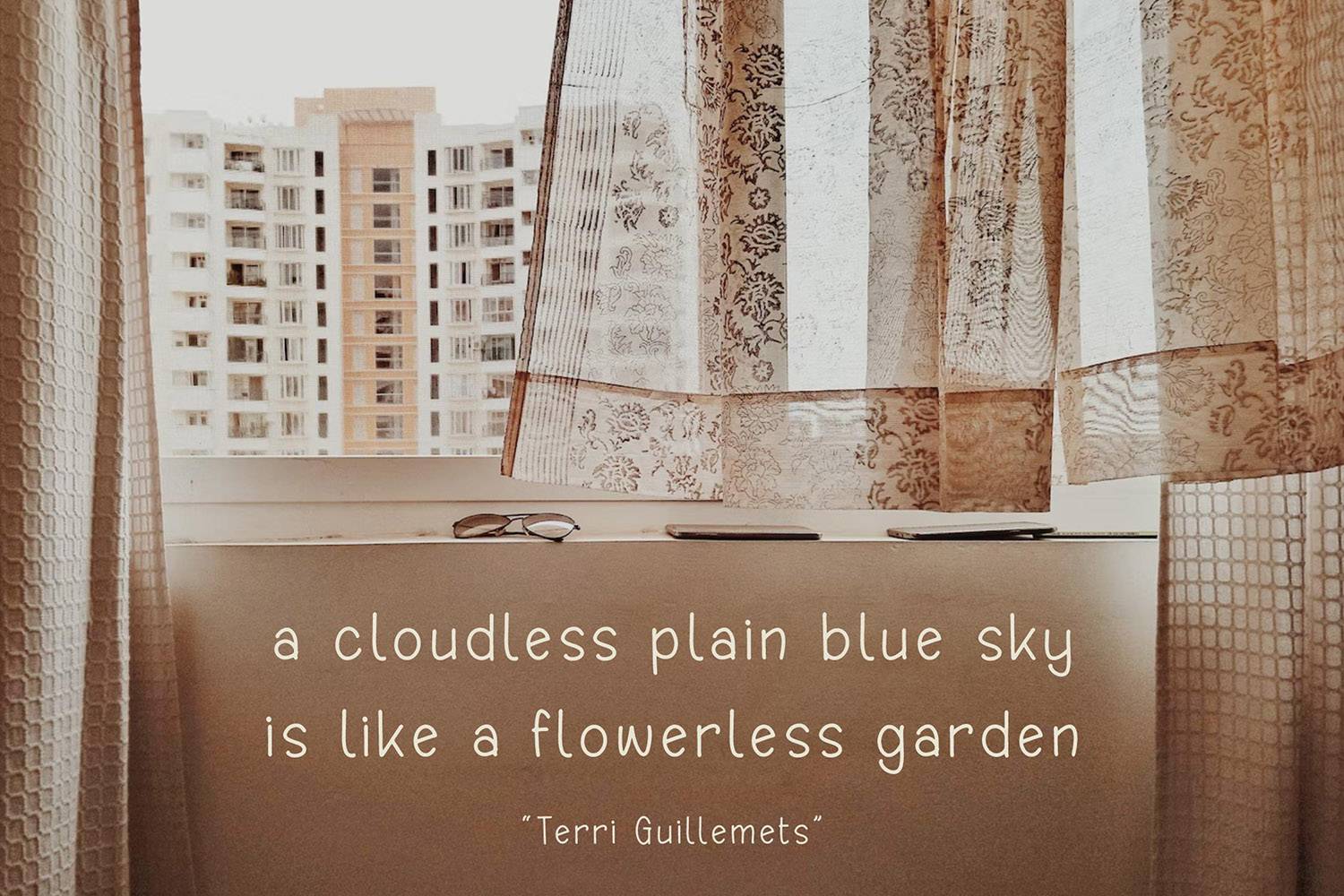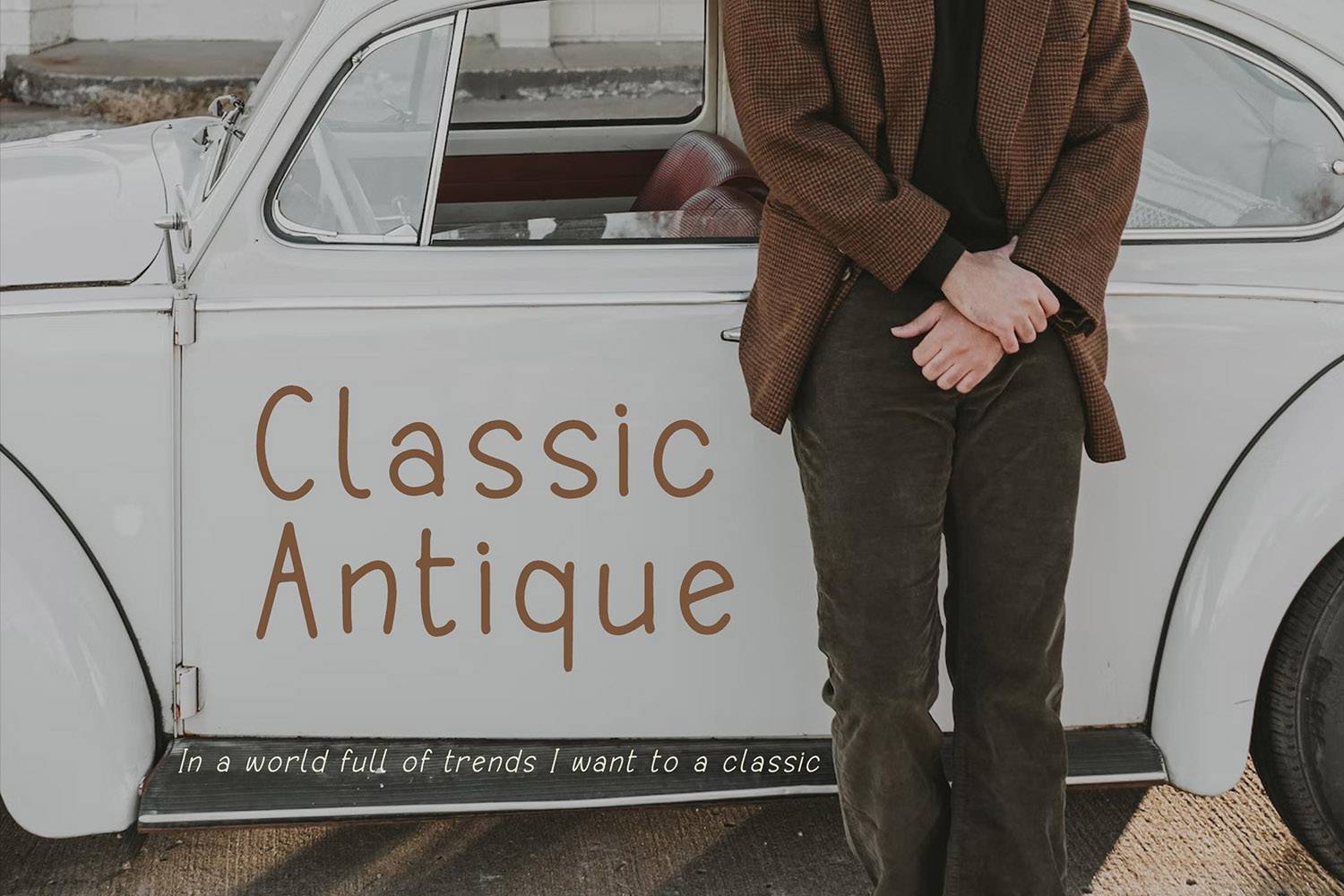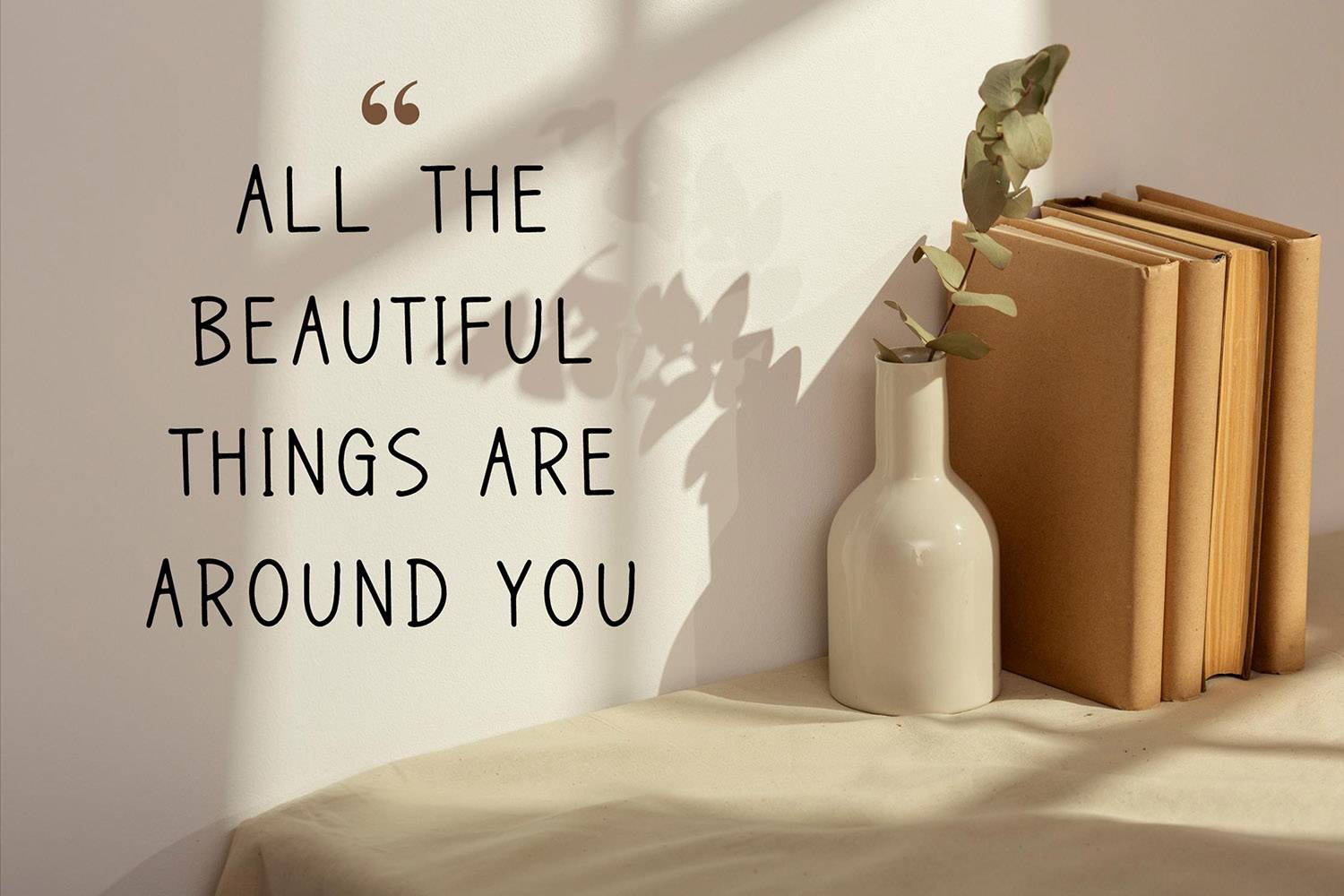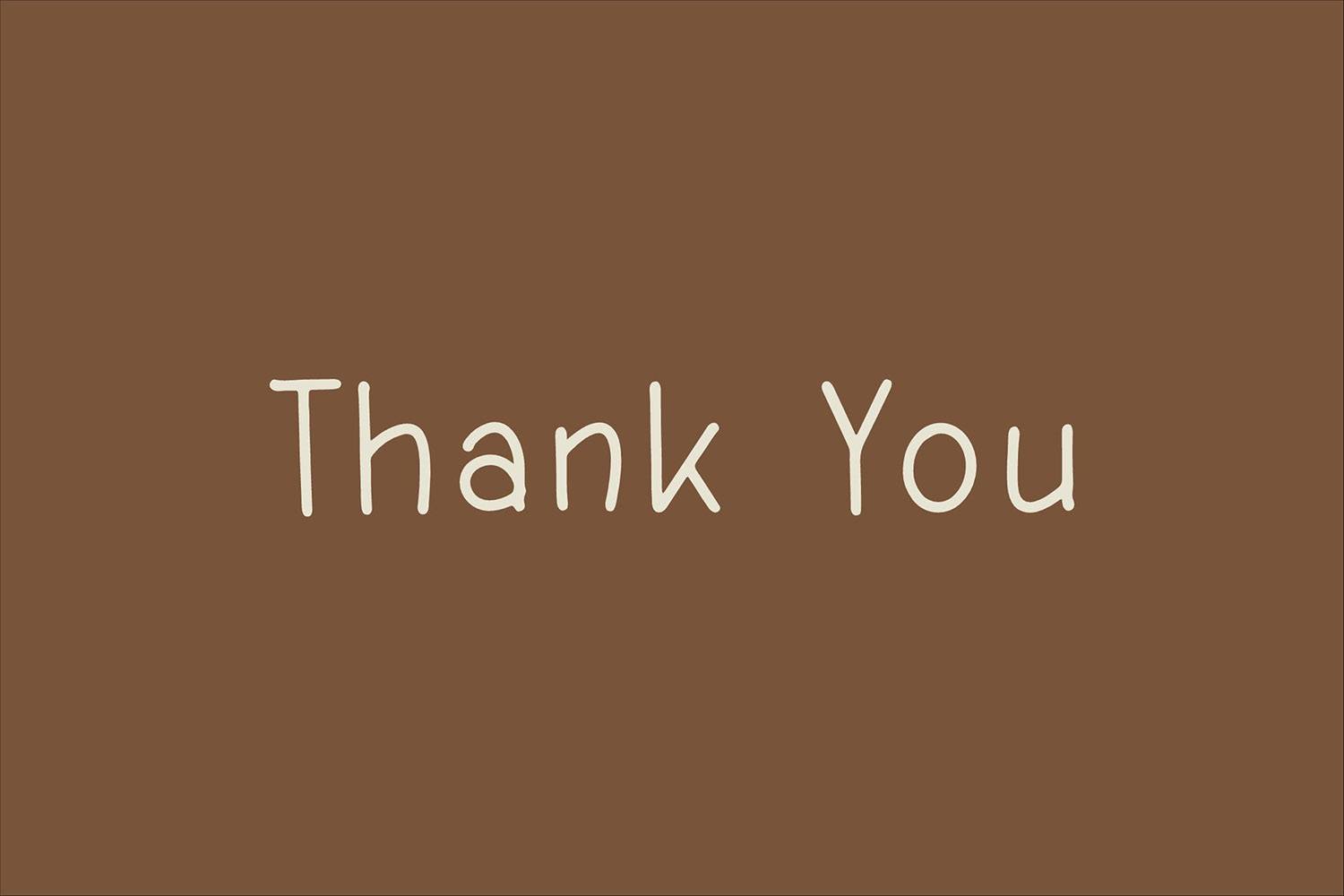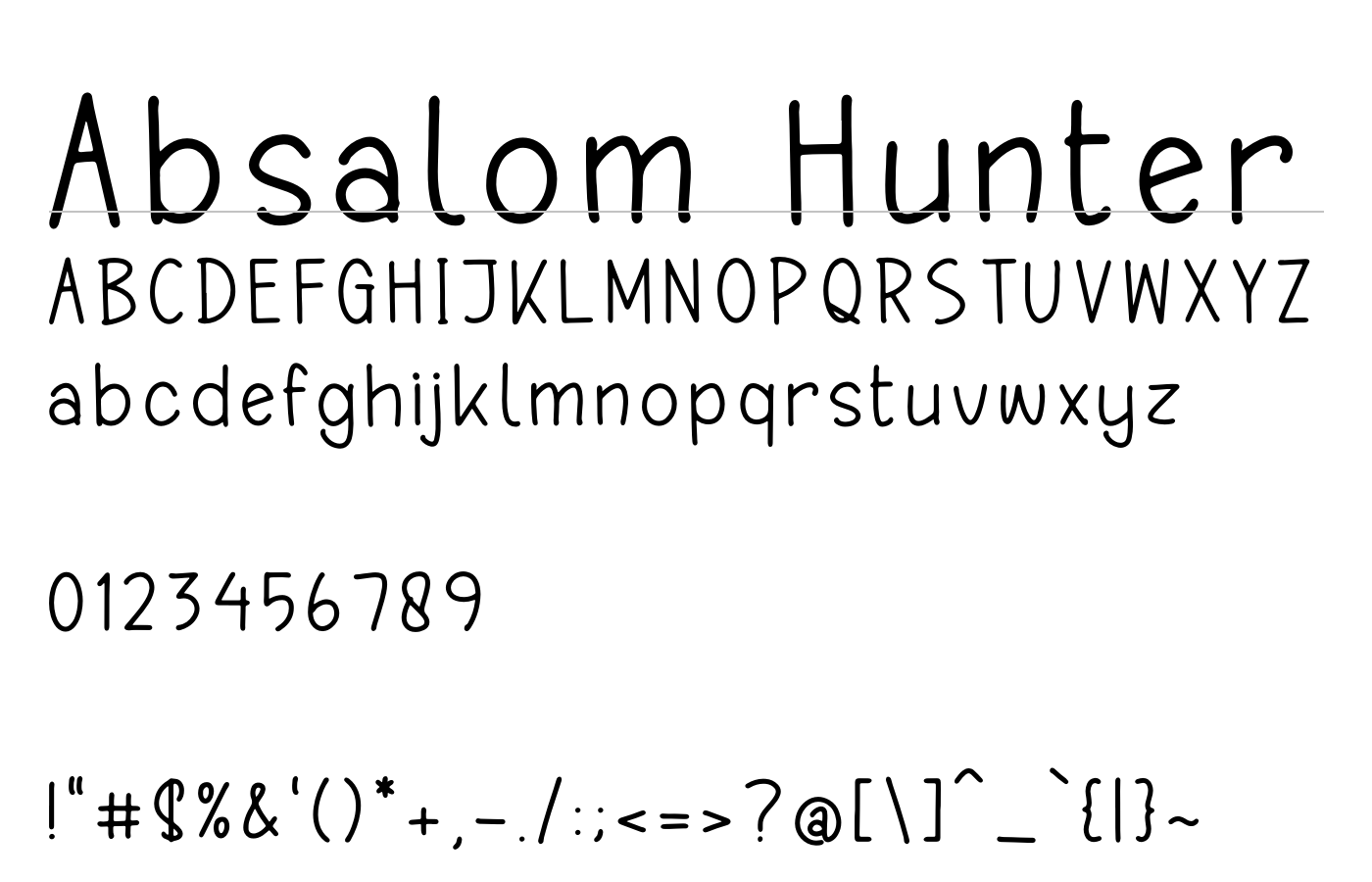
Absalom Hunter is a playful, hand-drawn sans serif font with a casual, friendly character. Its uneven stroke weight, tall x-height, and slightly irregular letterforms give it a warm, approachable feel, making it perfect for informal designs, children's books, or creative branding. This font works well in headlines and creative projects where a personal, handcrafted touch is desired.
Absalom Hunter Font
About Absalom Hunter Font